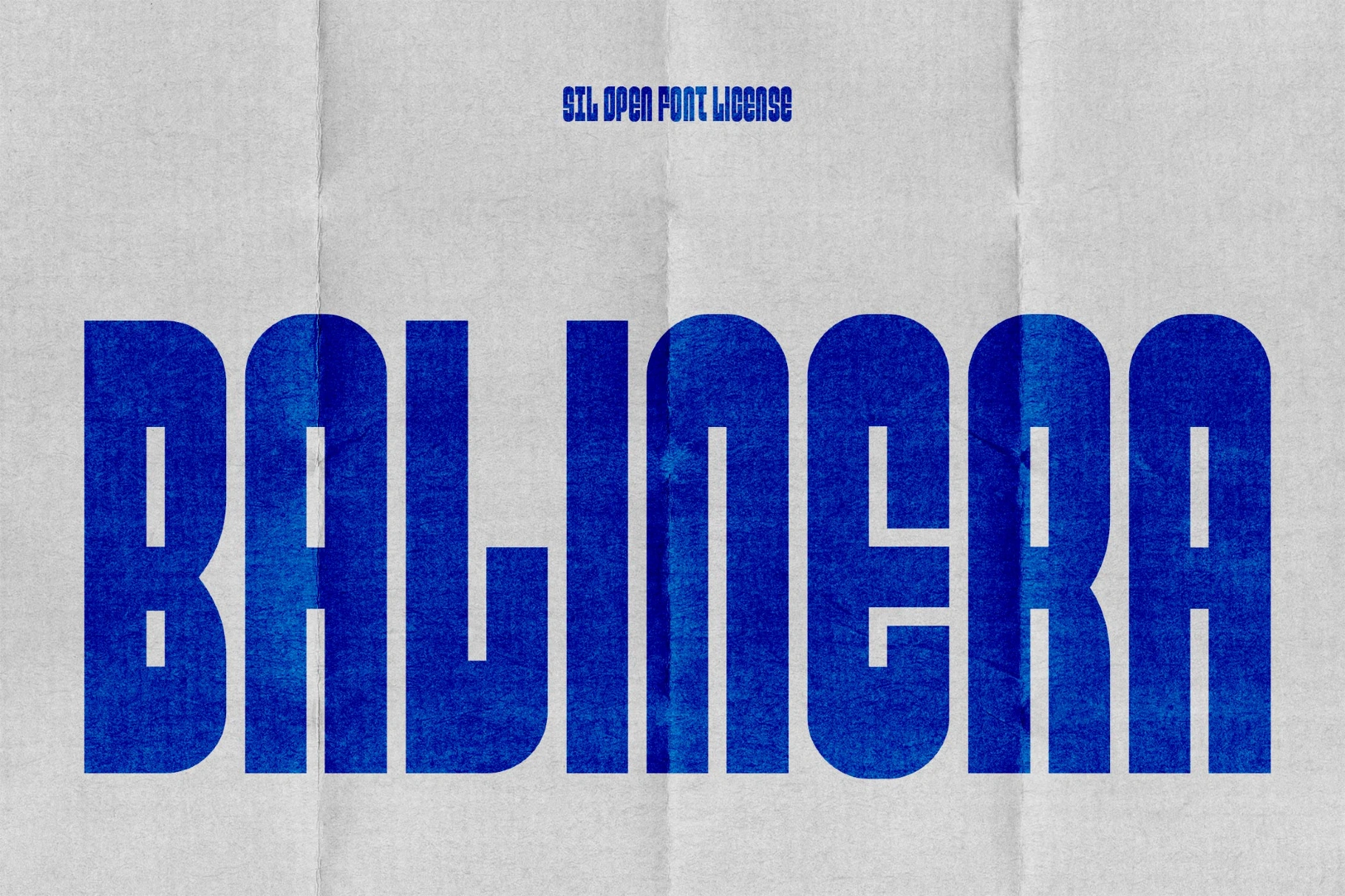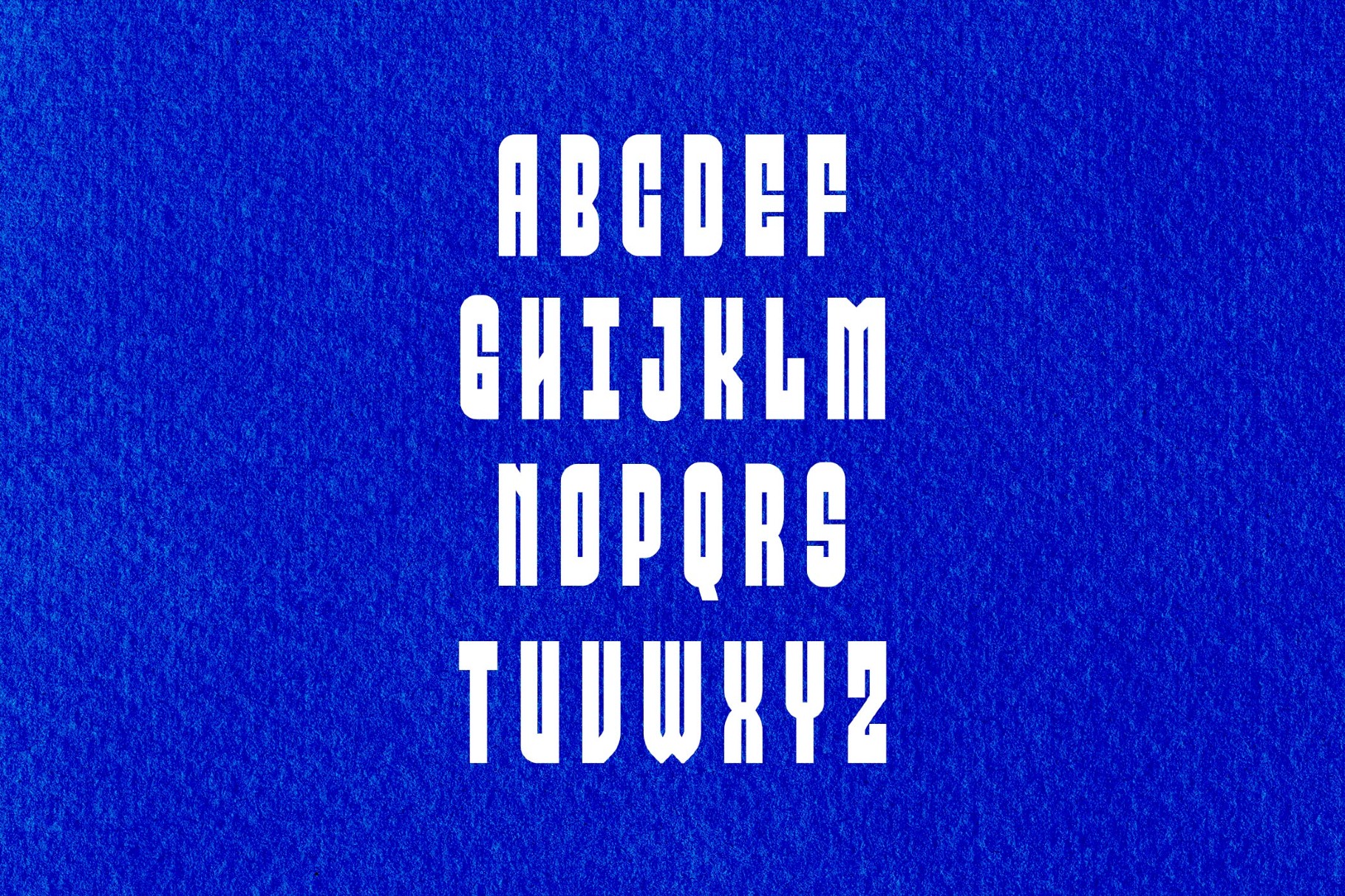
Balinera Condensed Sans
Balinera
Balinera is a quirky condensed sans with the blunt force of protest placards, tabloid headlines, and vernacular poster typography, turning tight proportions into something sharp. This type works well for slogan posters, editorial covers, logo design, streetwear graphics, packaging, social media visuals and campaign-style branding.